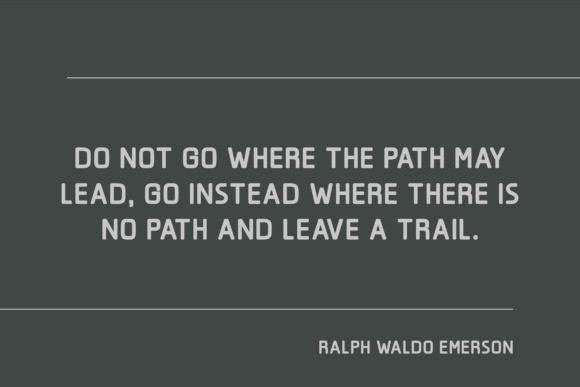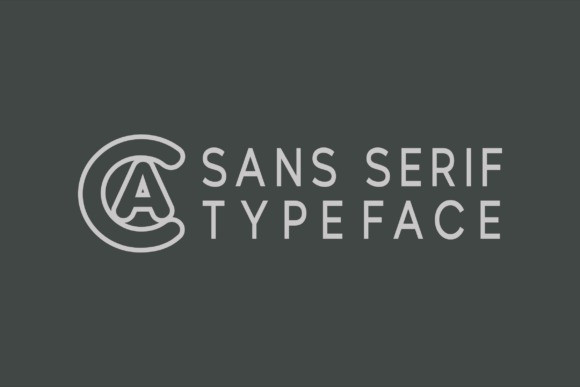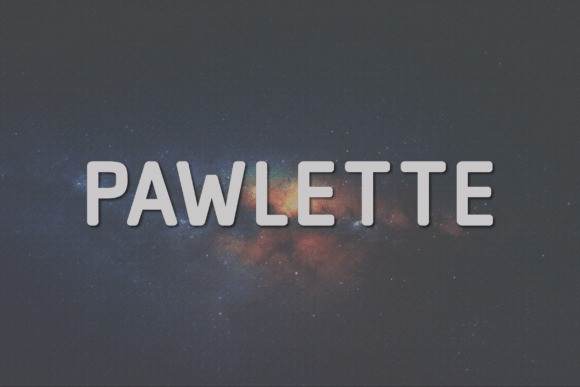
Pawlette Font
Pawlette Font, a modern, classy sans serif typeface. A sans serif typeface that contains upper characters, number 0-9 and a range of punctuation and symbols. An extremely versatile font, perfect for logos, weddings, invitations, quotes, advertisements, print, magazines, and more!